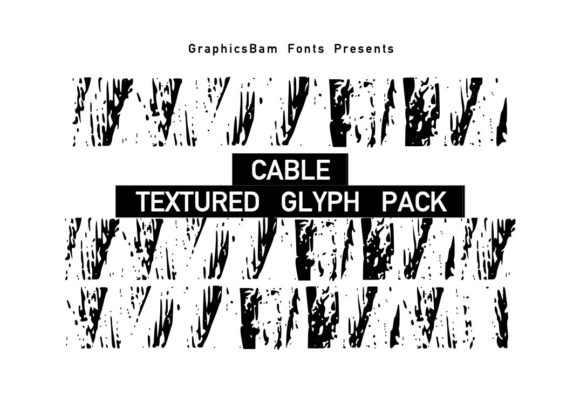
ABOUT METAL CABLE GLYPHS FONT
“Metal Cable Glyphs” is an extensive collection of glyphs that showcases a variety of rusted metal rope textures. This pack is specifically designed to add an industrial and weathered look to your design or craft projects.
With its realistic and detailed textures, “Metal Cable Glyphs” offers a wide range of options for incorporating rusty metal rope elements into your creative endeavors. Whether you’re working on graphic designs, crafting projects, or any other visual medium, these glyphs can bring a unique and authentic touch to your work.
The rusted metal rope textures in “Metal Cable Glyphs” can evoke a sense of ruggedness, durability, and vintage charm. They are perfect for creating backgrounds, adding texture to illustrations, or enhancing the visual appeal of your designs. Whether you’re aiming for an industrial theme, a steampunk aesthetic, or simply want to incorporate a touch of grit, this pack provides an excellent resource.
Unleash your creativity and explore the possibilities with “Metal Cable Glyphs.” Experiment with different textures and compositions to achieve the desired look for your projects. Let the rusted metal rope textures bring a distinctive and captivating element to your designs, making them truly stand out.
Whether you’re working on digital artwork, posters, packaging, or any craft project that calls for an industrial and weathered look, “Metal Cable Glyphs” is here to enhance your creative process and elevate your designs.